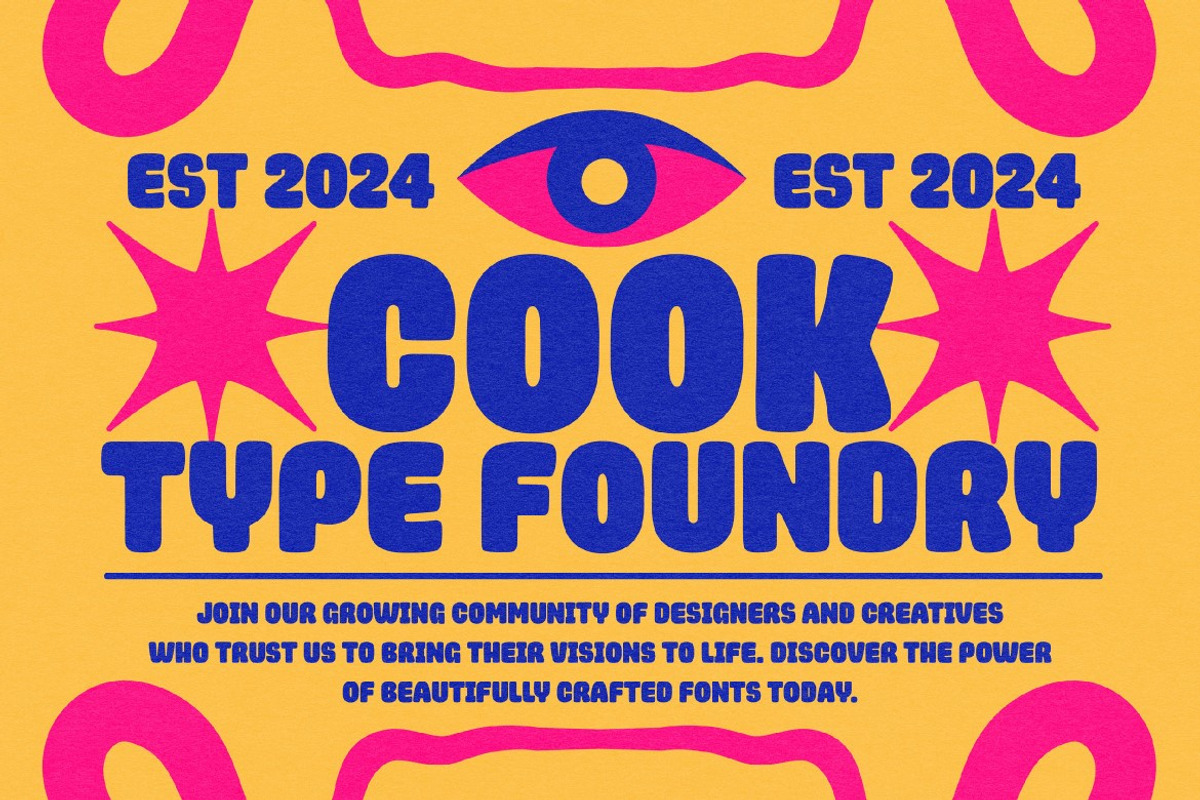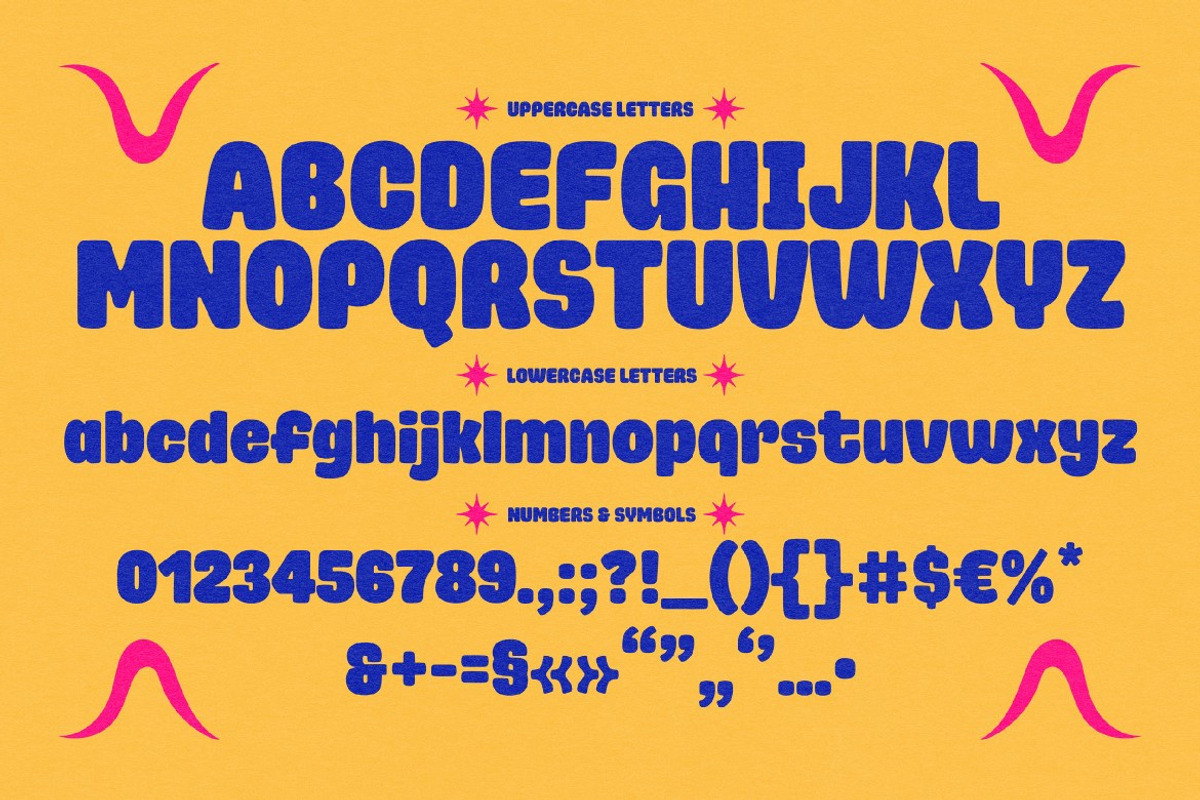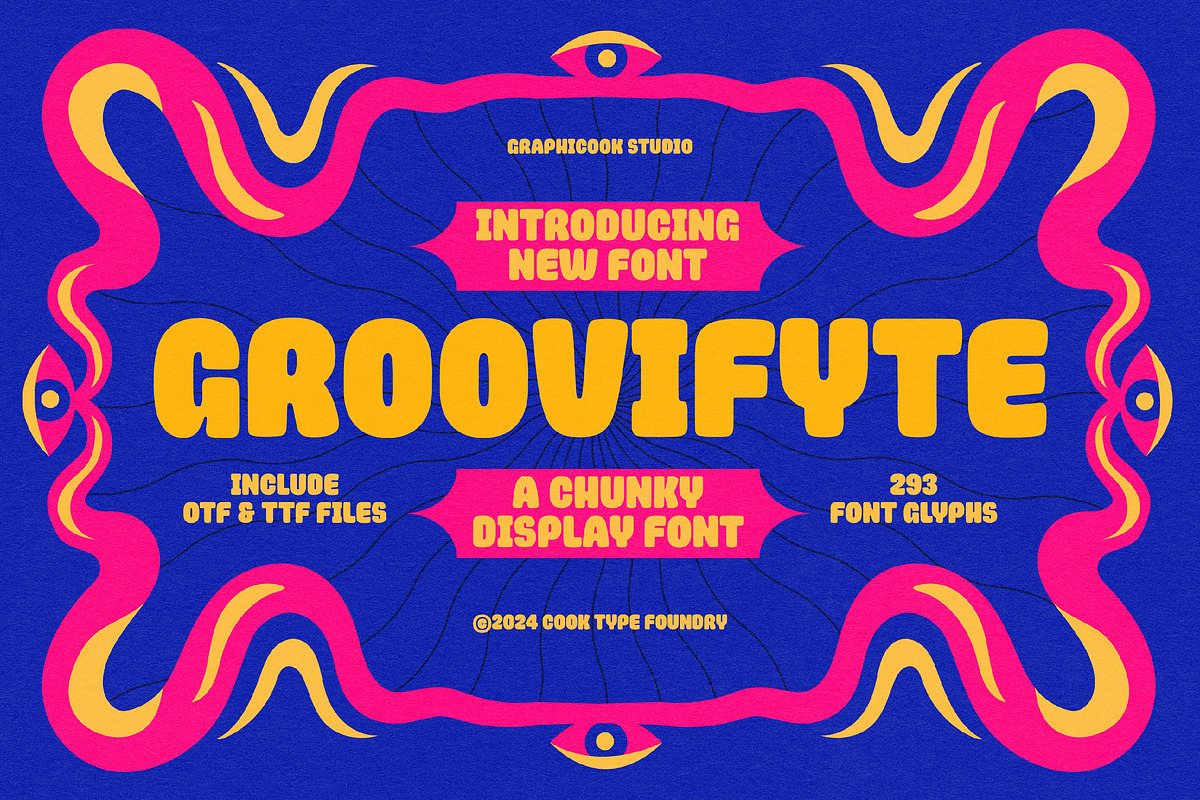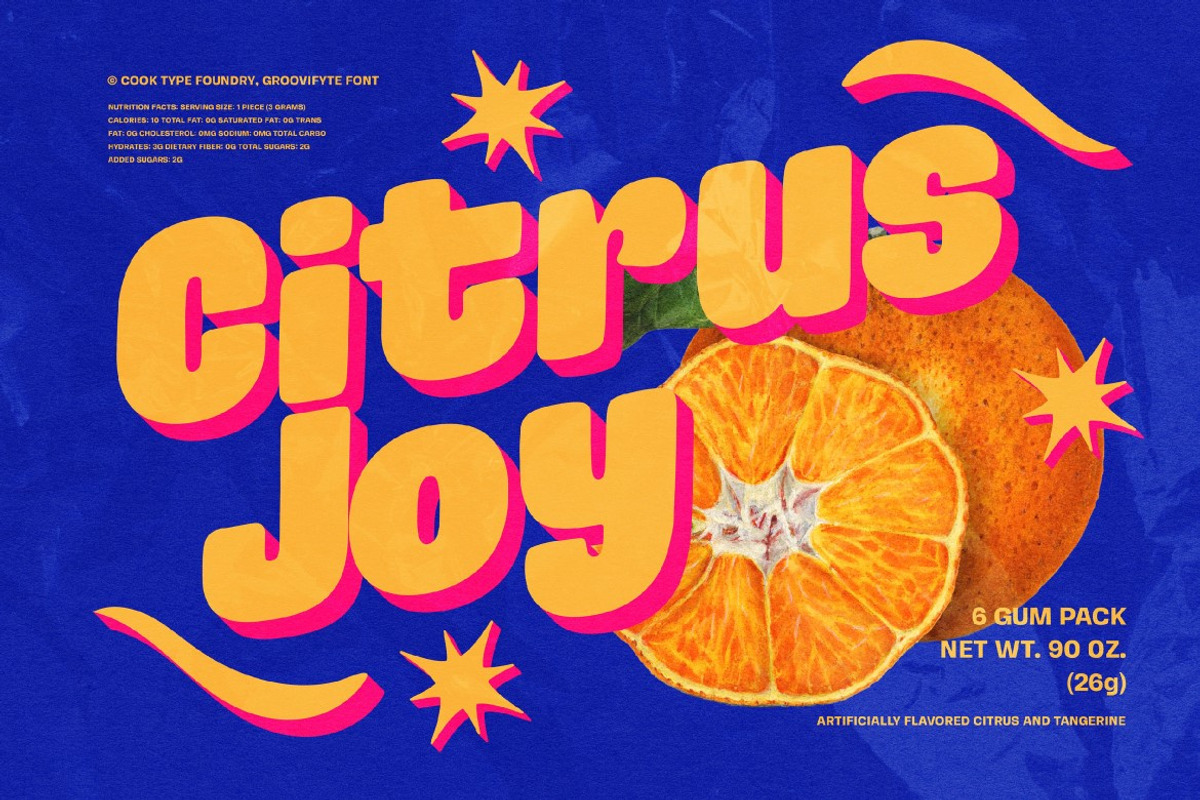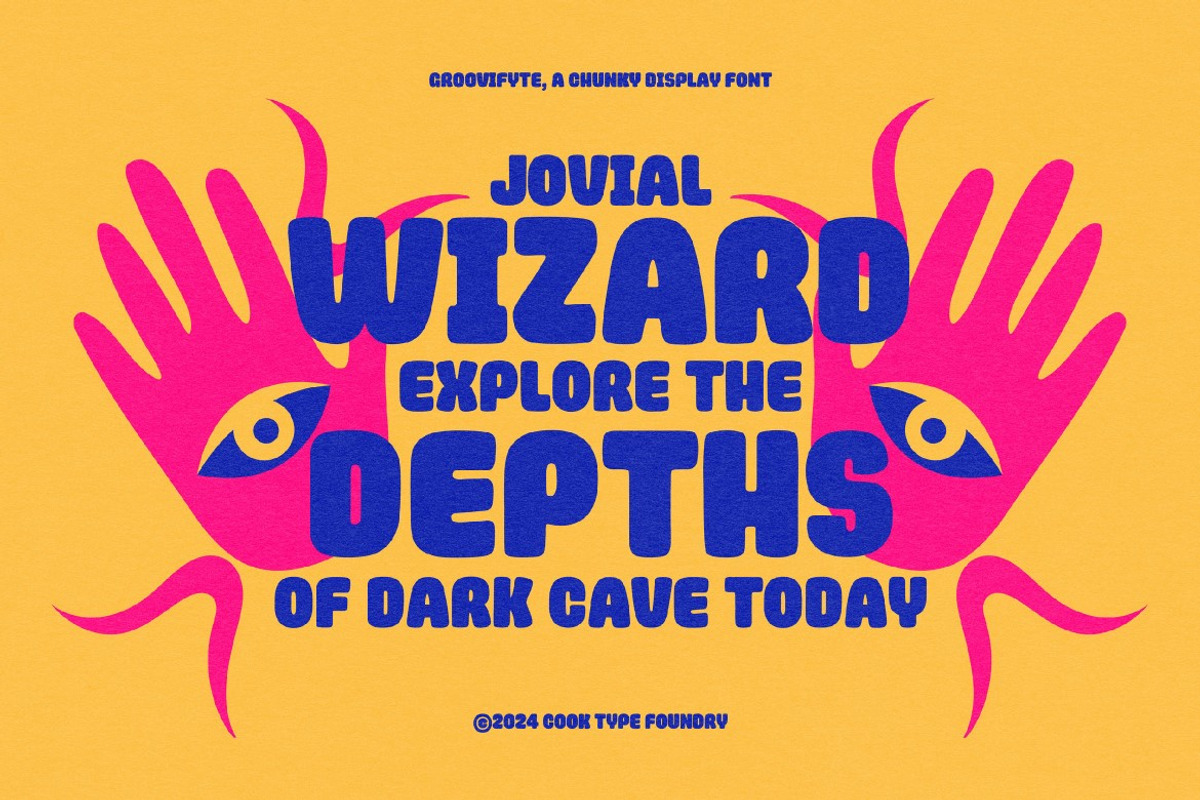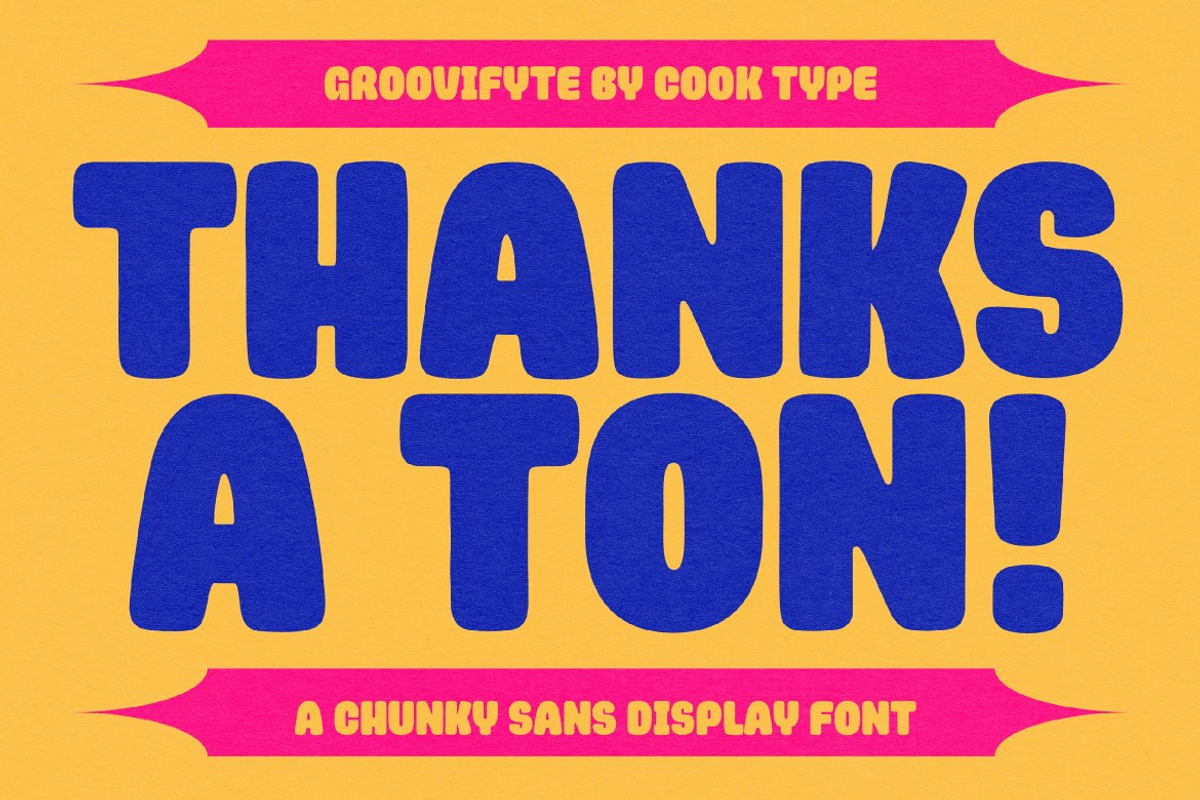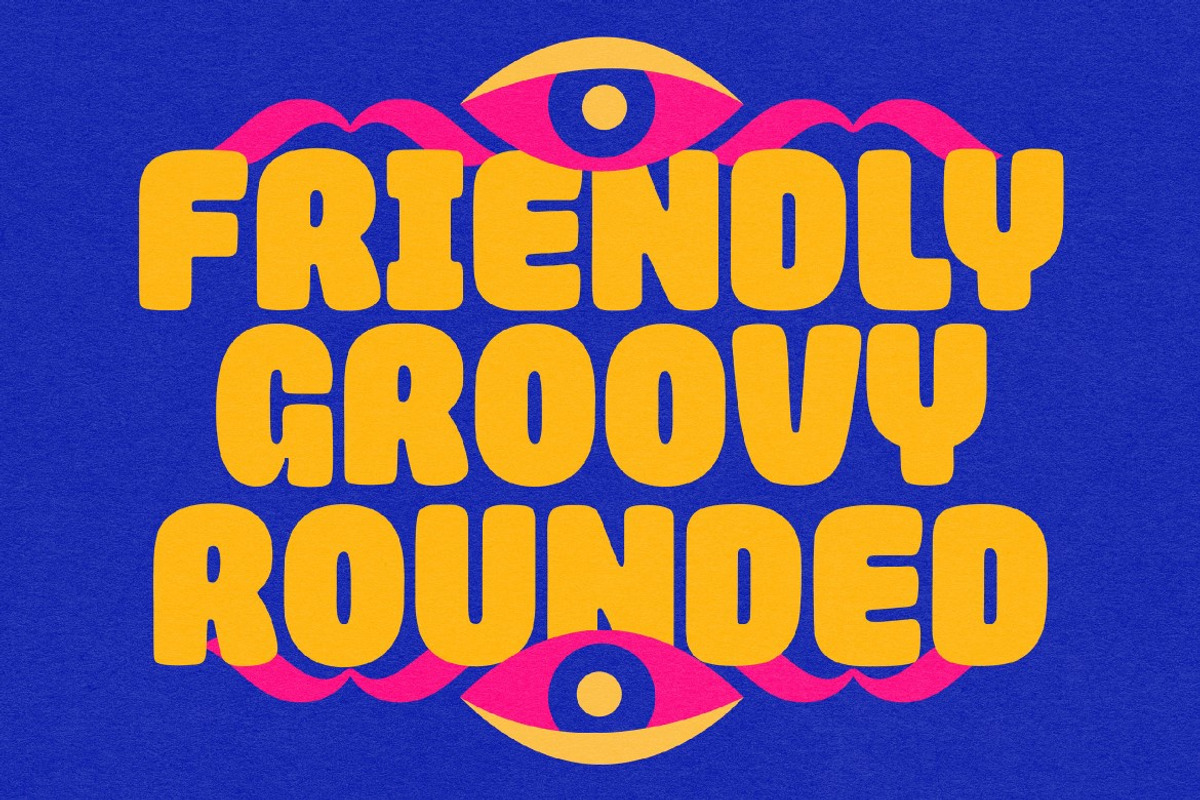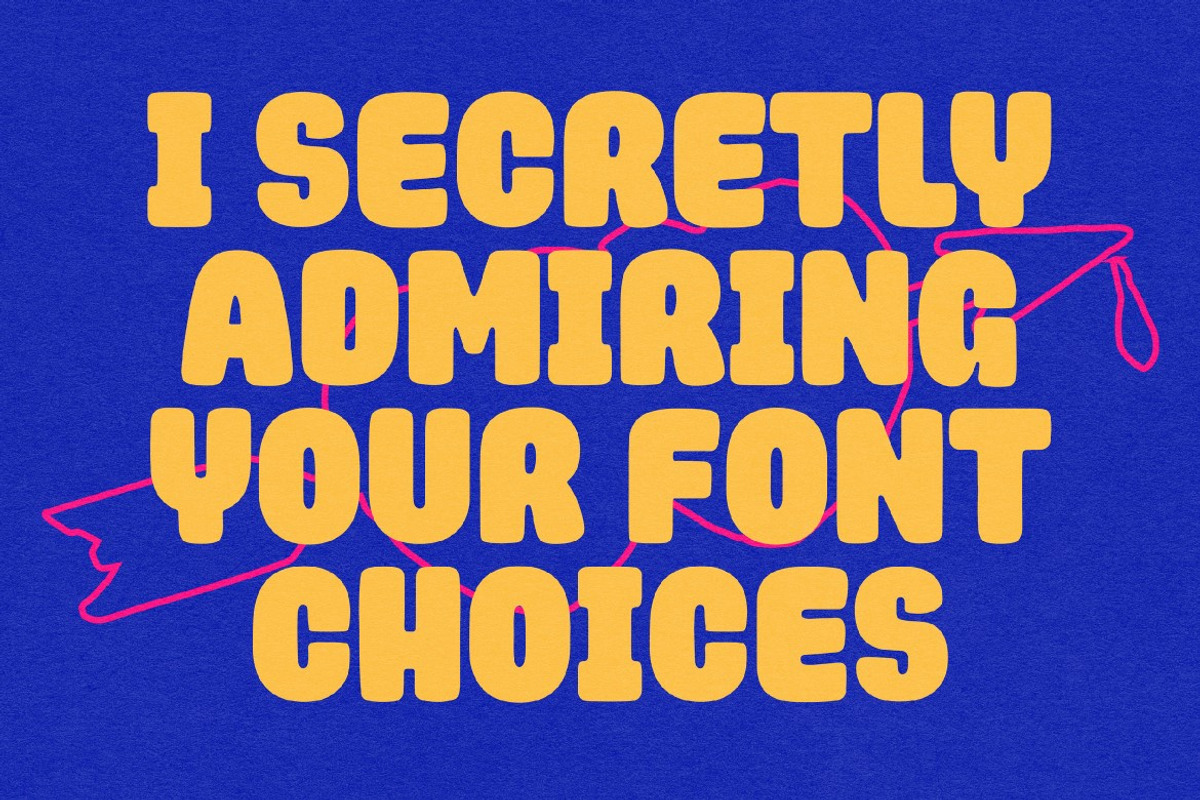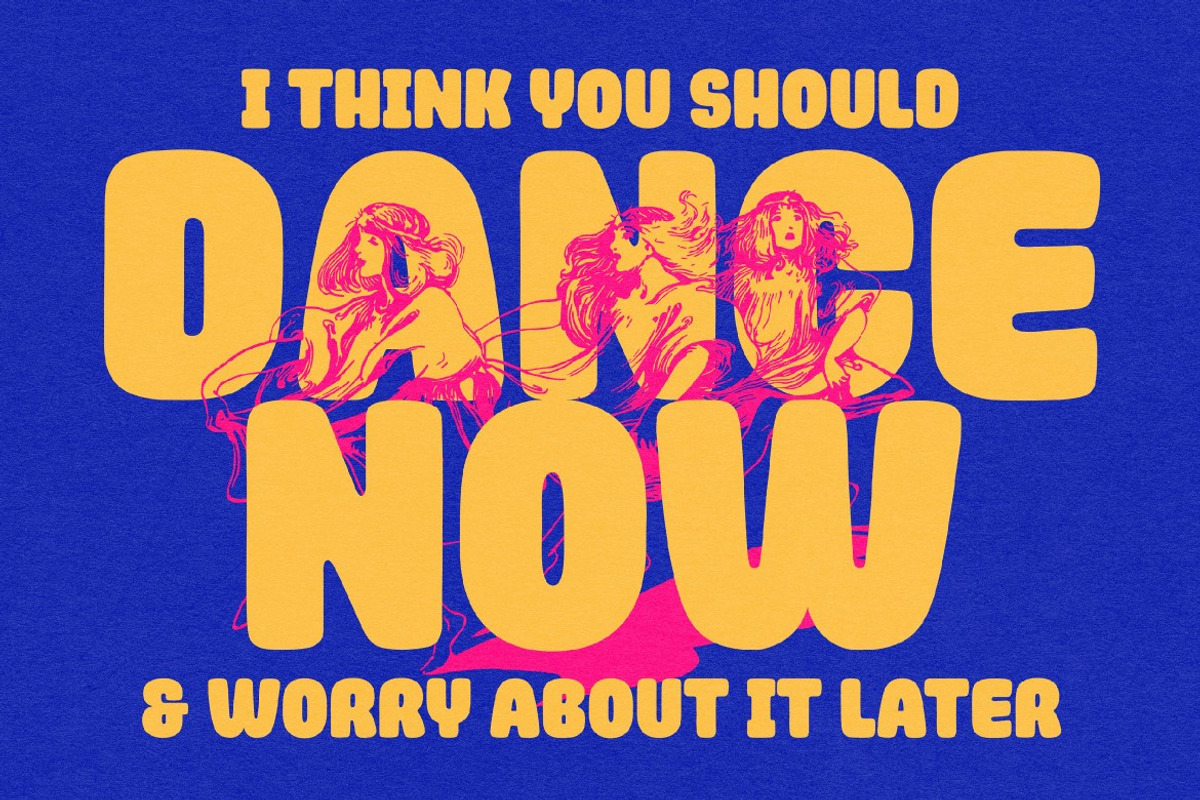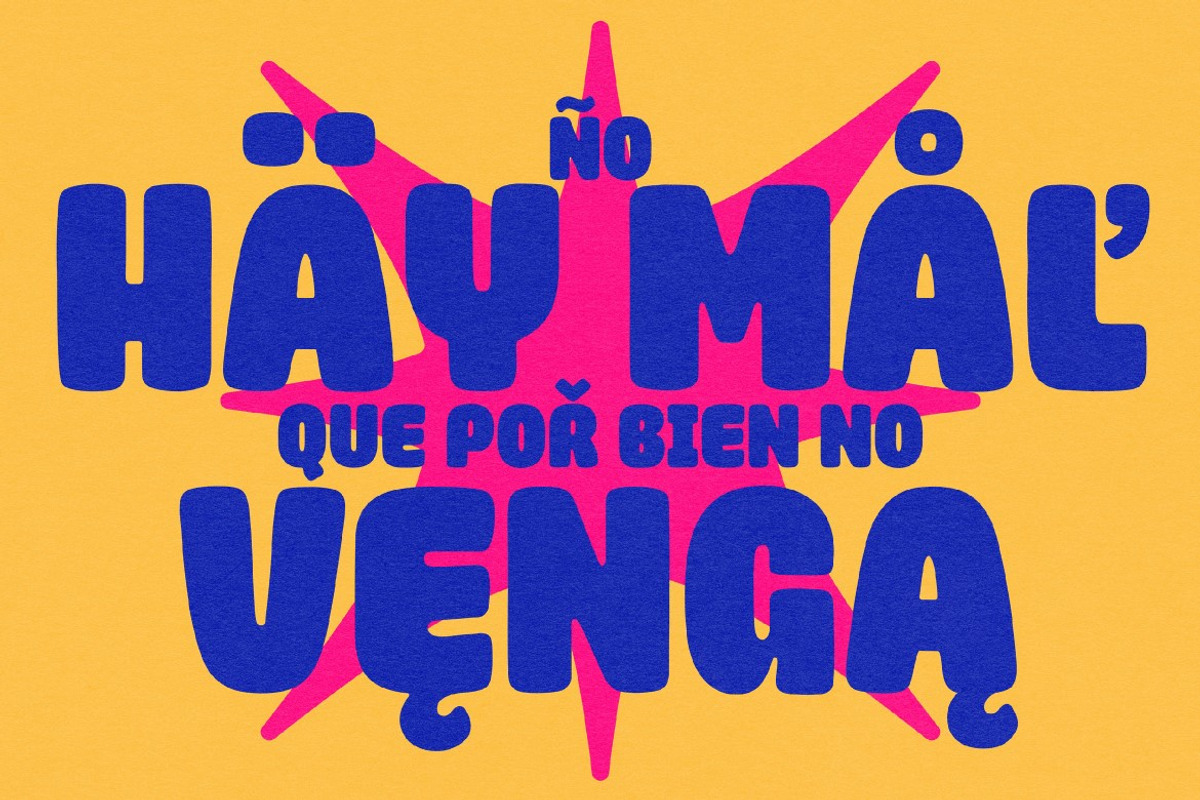
Groovifyte
Introducing Groovifyte Typeface! It's a chunky display font that radiates a groovy edge, perfect for any designs that embrace a playful mood.
Groovifyte is perfect for headlines, logotypes, magazines, packaging, quotes, movies, games, cover albums, book covers, and flyers, it's a perfect solution for creating eye-catching designs that stand out in any context.